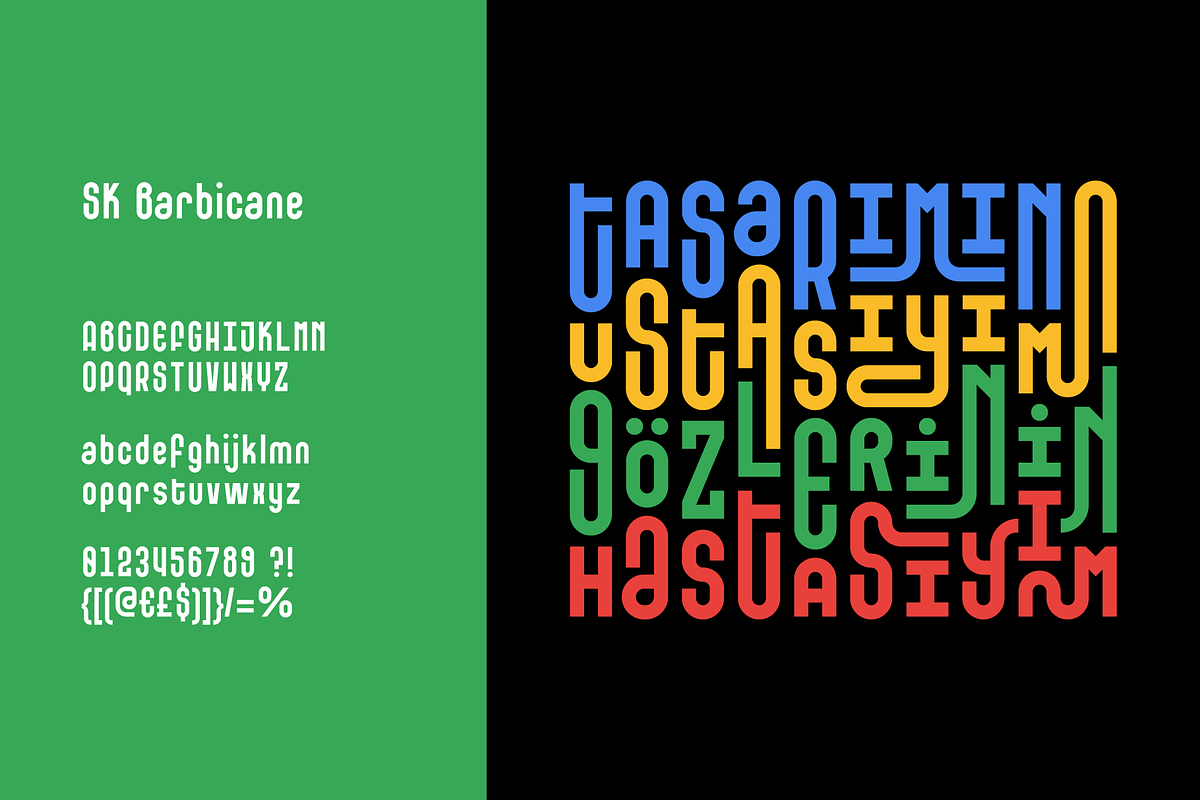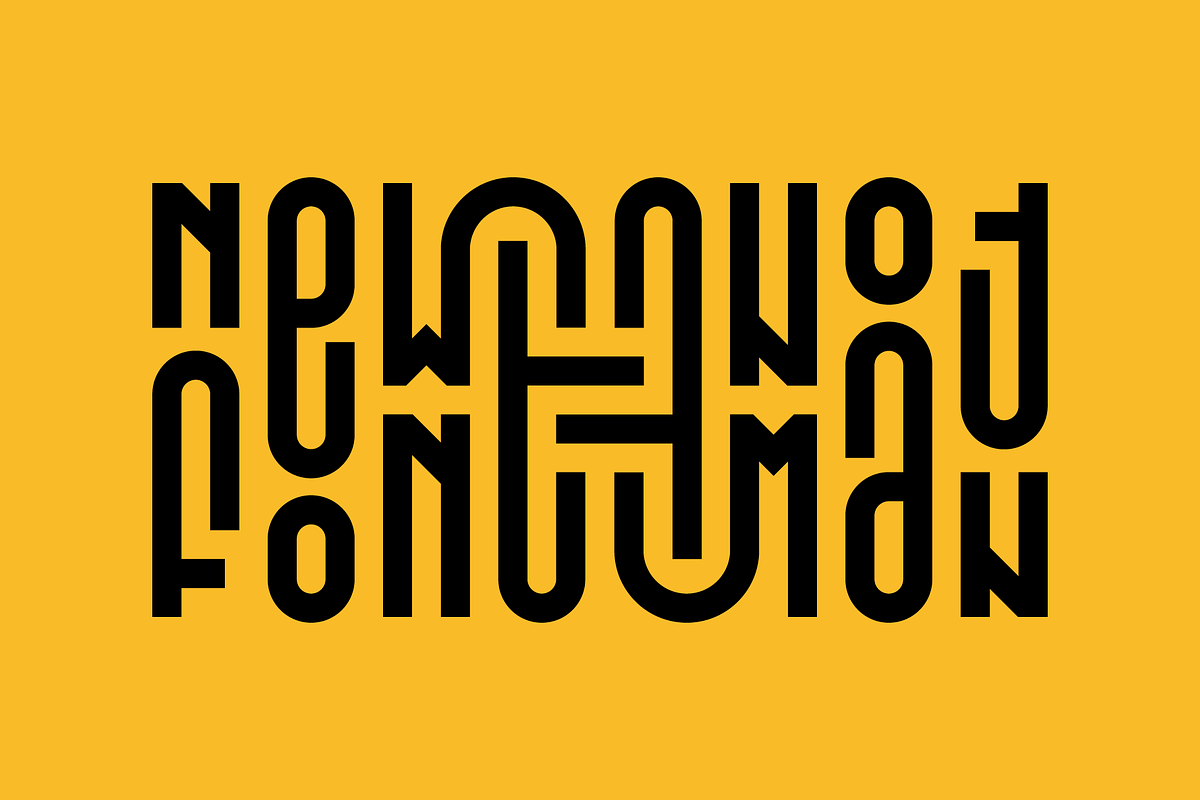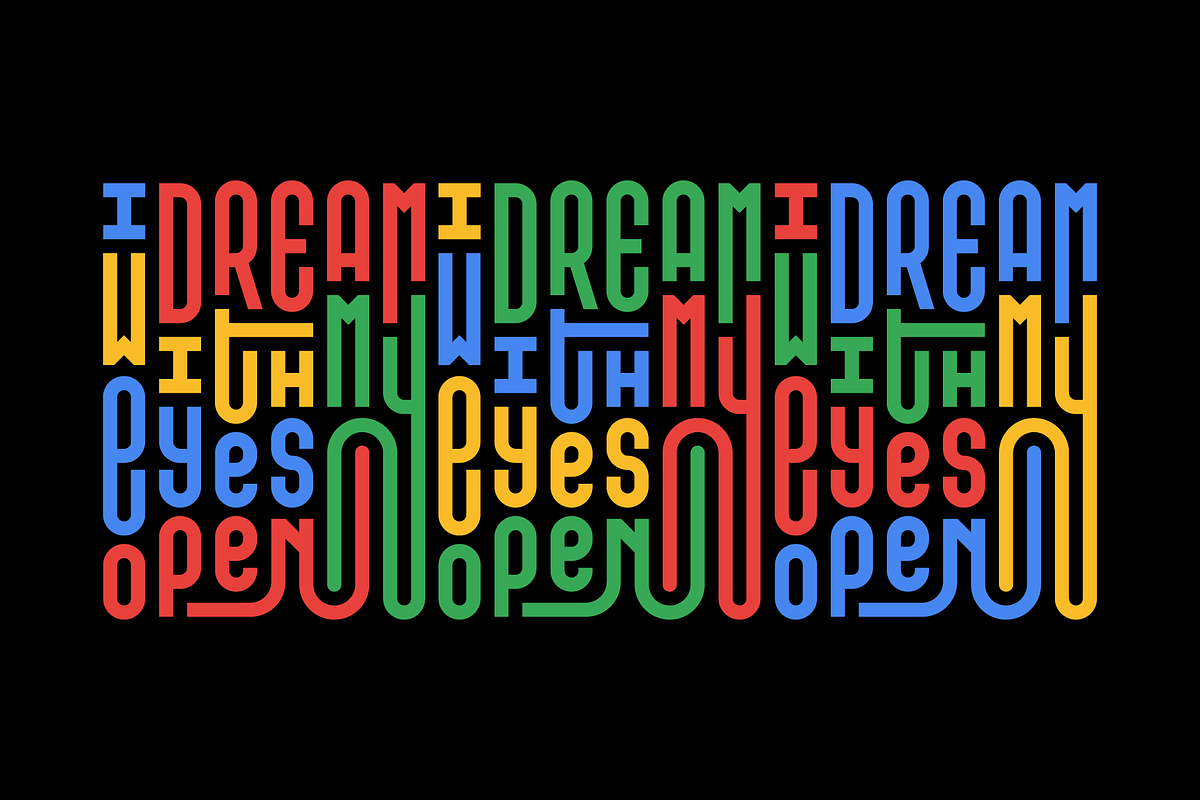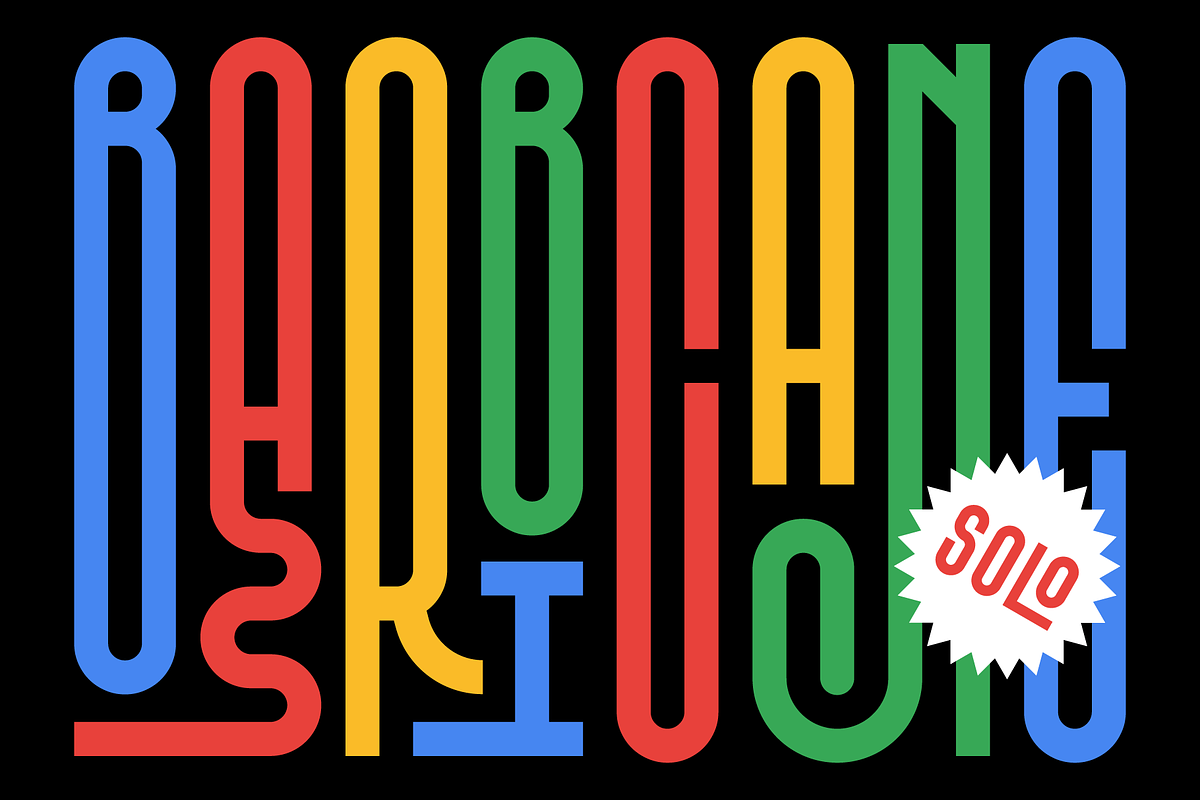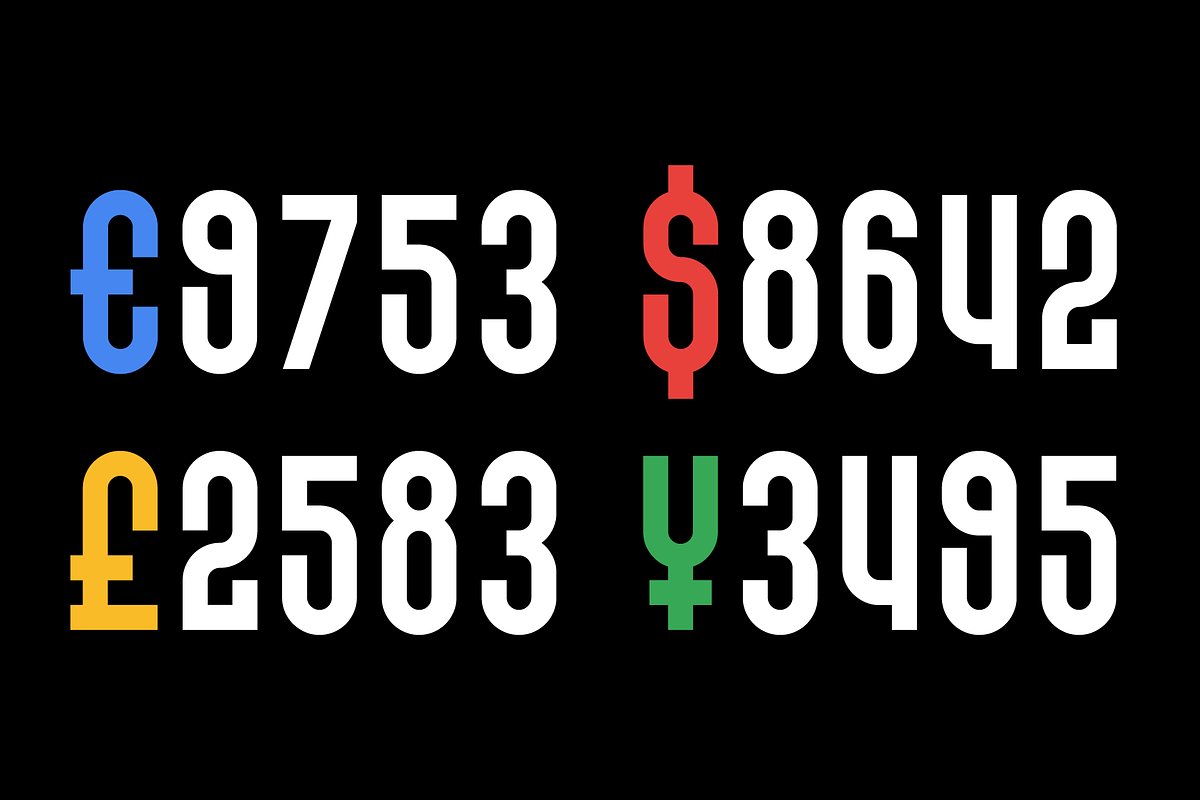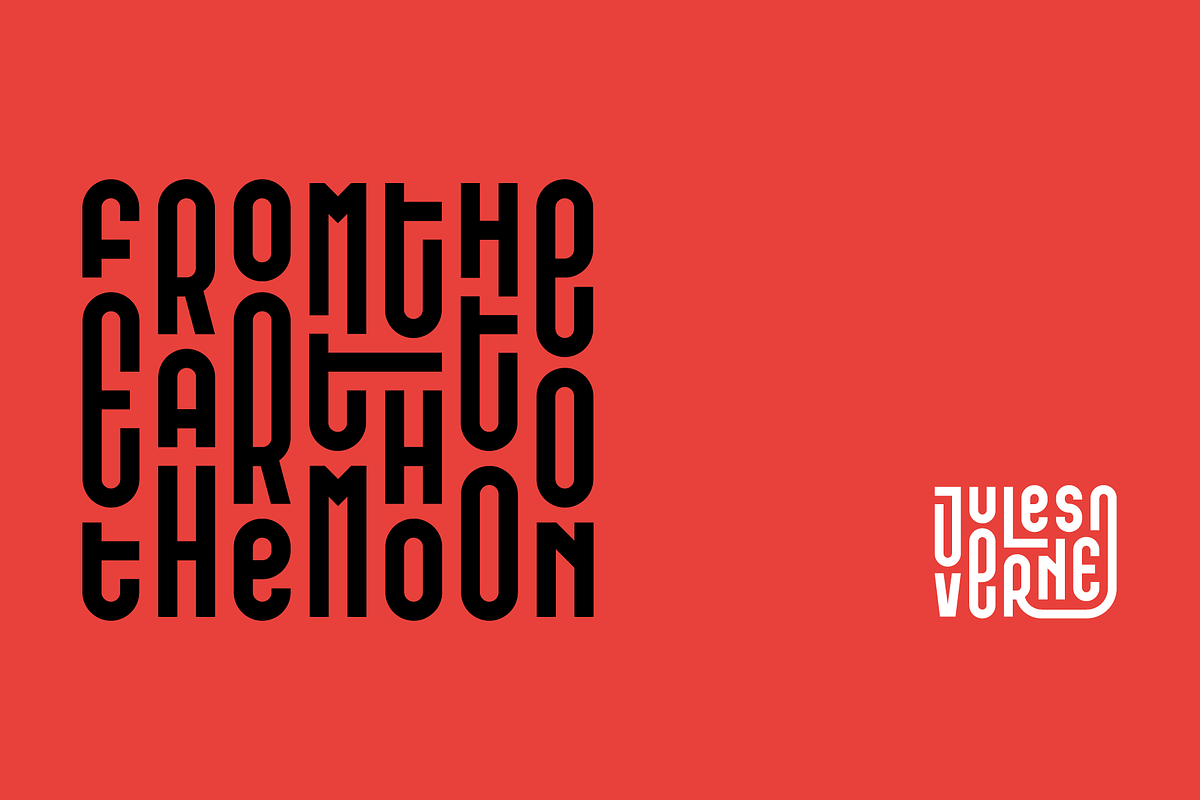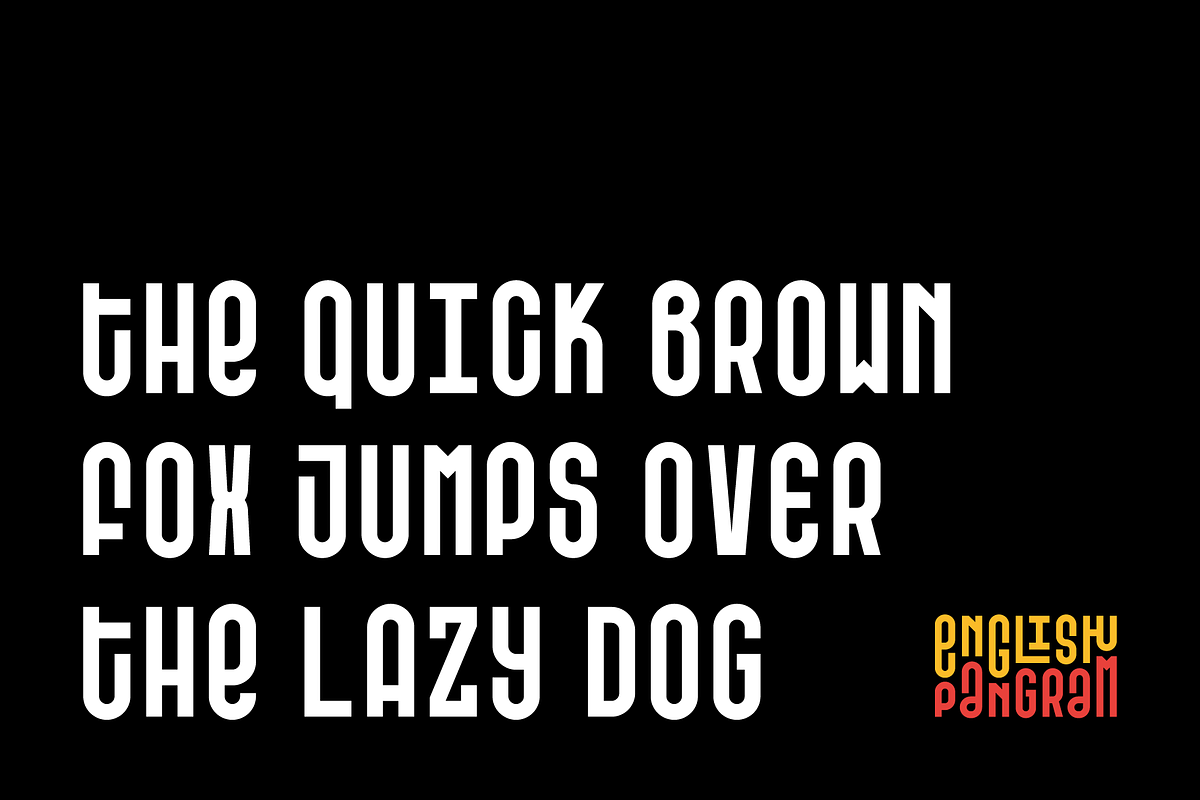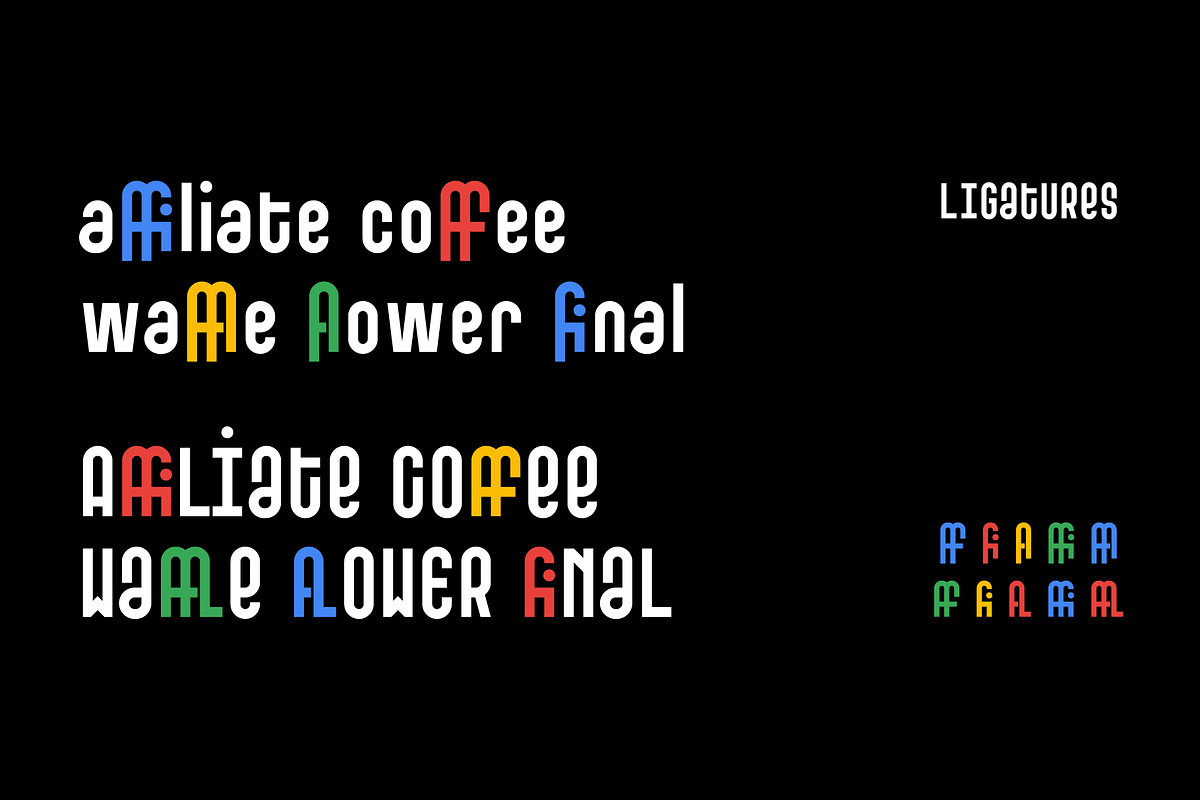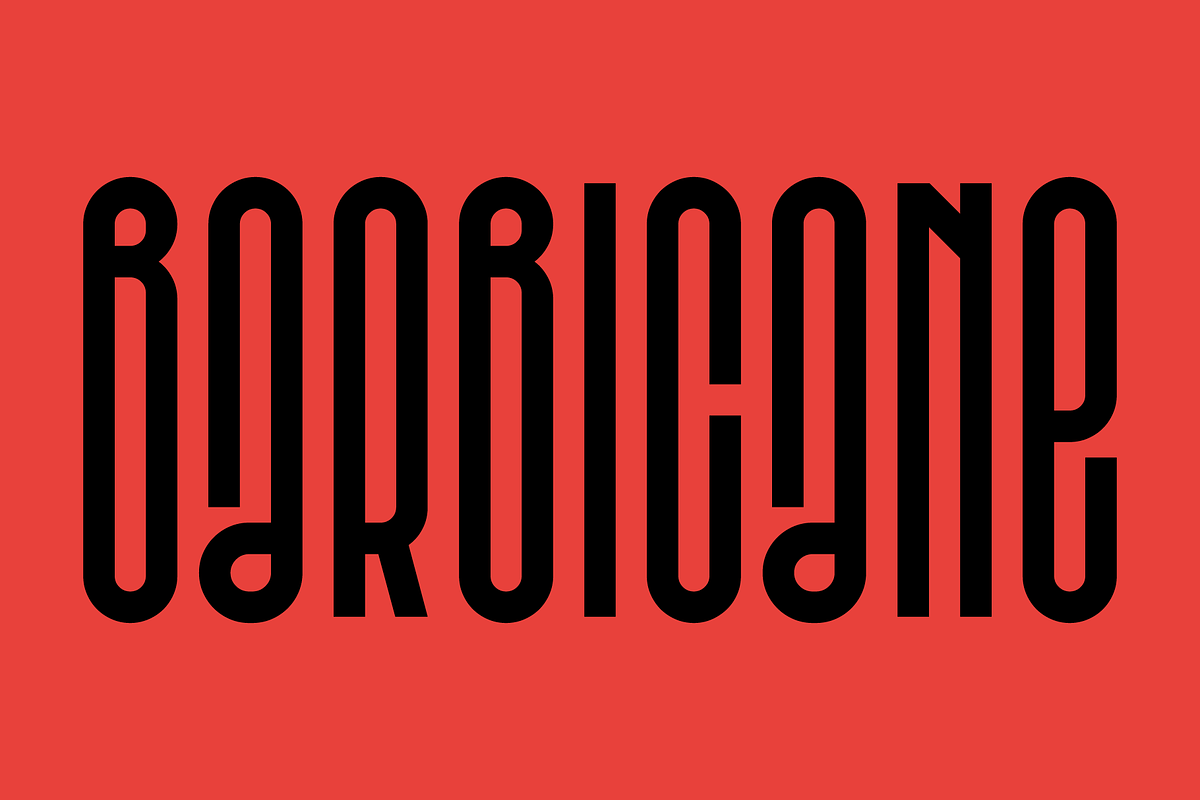
SK Barbicane Solo
SK Barbicane is a family of typefaces named after Jules Verne's famous book, From the Earth to the Moon. Inspired by Jules Verne's foresight, it was designed with a synthesis of the future and the past. While it carries sharper and futuristic lines than the future, it also incorporates the organic structure of the past.
All characters have equal dimensions in this font with mono weight and mono space. In this way, you can create regular typographic layouts in your designs. Consisting of two different families, Normal and Unicase, this font has a total of 2 different fonts. In this way, it contains many typographic elements that you will need in your designs.